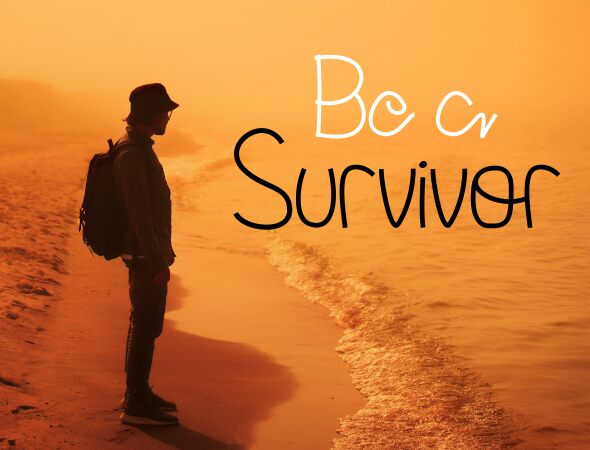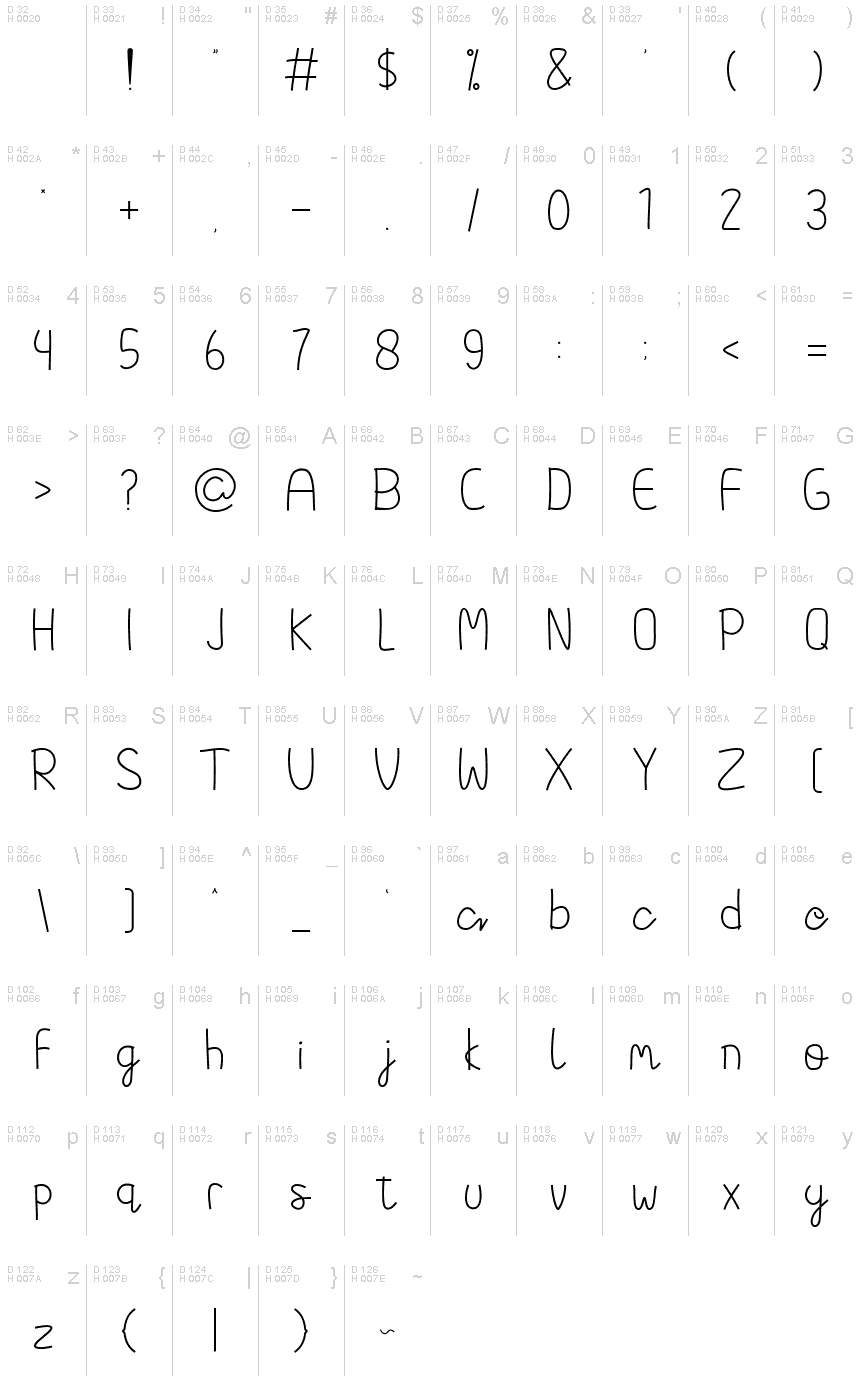
Parramellow
Parramellow font is a light handwritten font designed by Cocoriscranjy.
This font suitable for lettering, logo, banner,etc. Have nice characters and unique. Enjoy it.